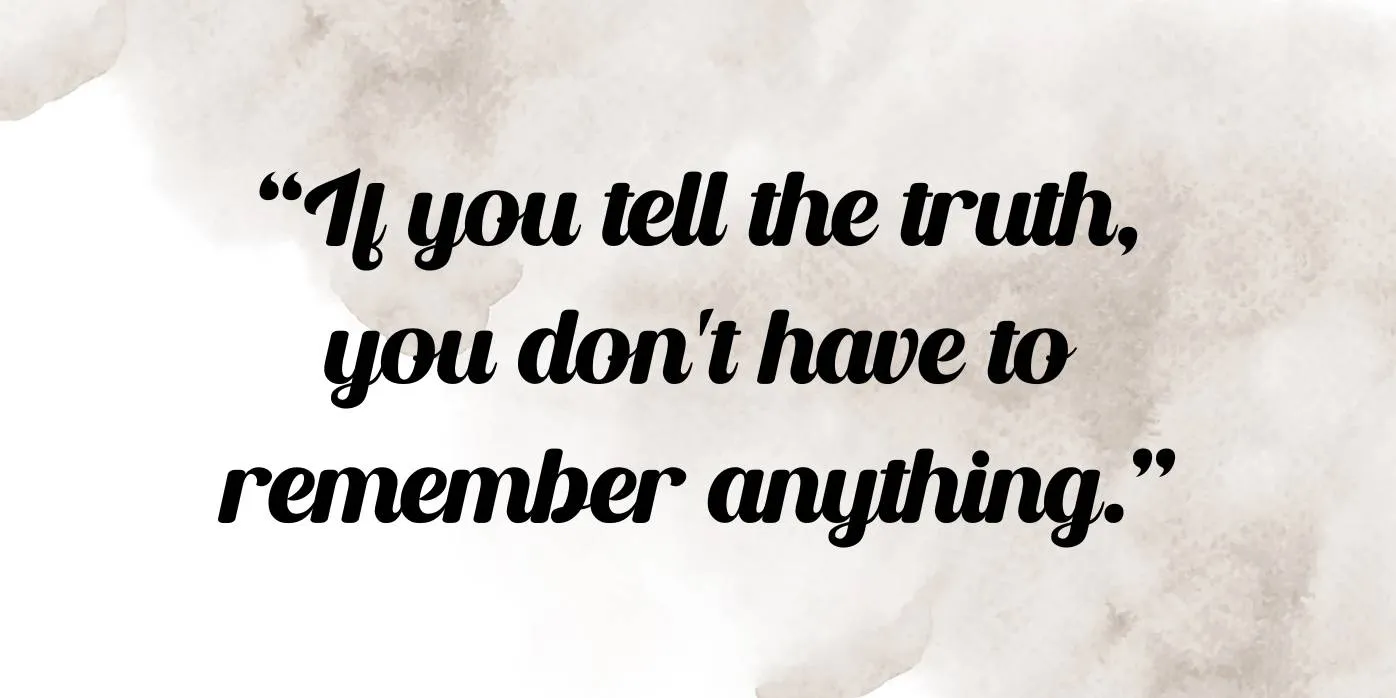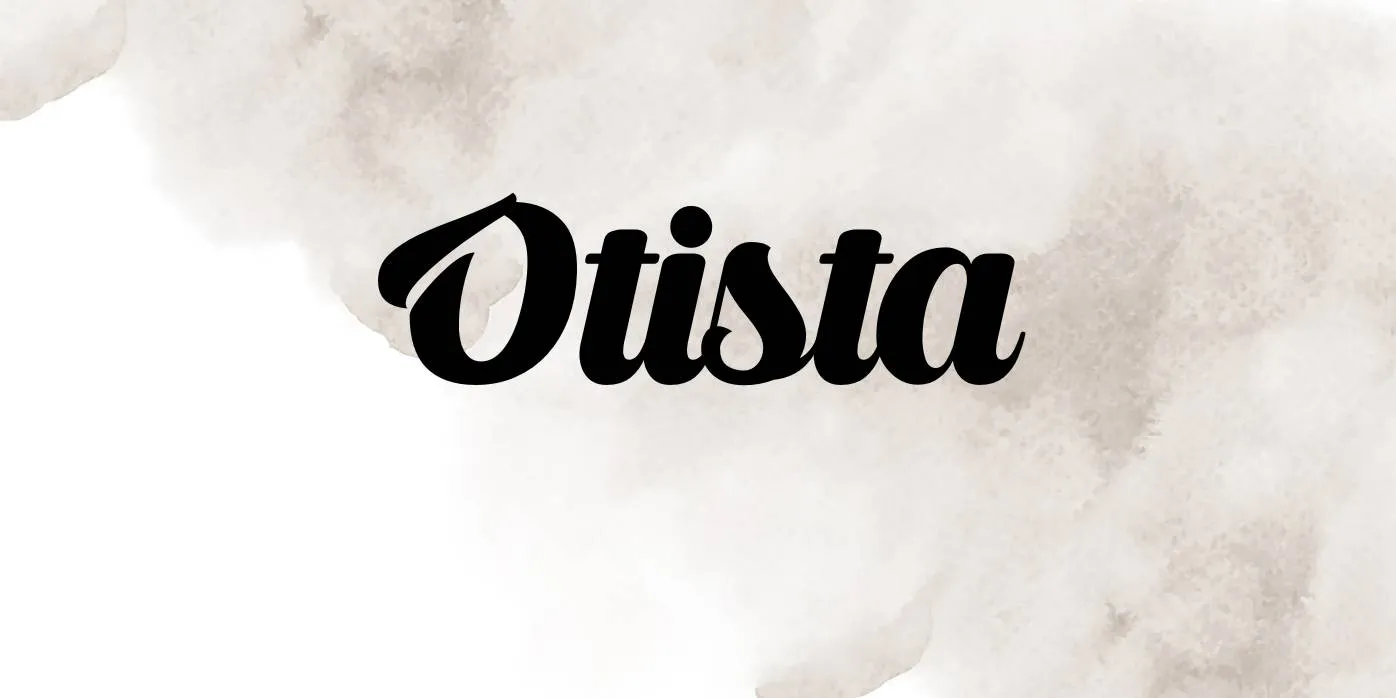
Otista Font
Omotu Studio is the designer for this typeface. Otista Font is a script type of typeface that has characters famous for those designs that require high readability and boldness. The characters for this typeface have stunning results that support digits, normal letters, special letters, punctuation, and some international characters. The copy-and-paste function for this typeface is very simple and clear.
This has stunning effects for small projects but you do not need to use this font for large projects.